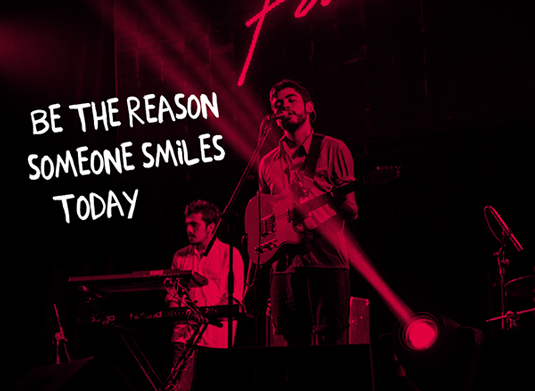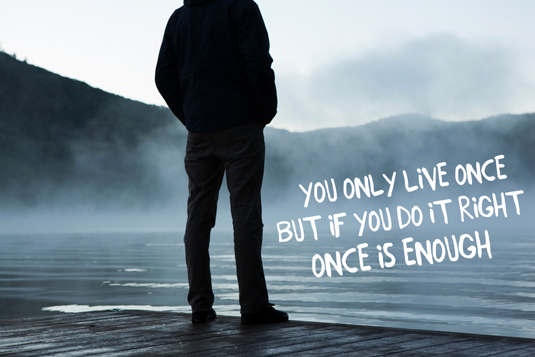
Font of the day: Close
Close by Rachid Aitouaissi
Add some vintage style to your designs with this cool, handmade typeface Close. Created by art director Rachid Aitouaissi, Close is great for giving your designs that authentic handmade feel.